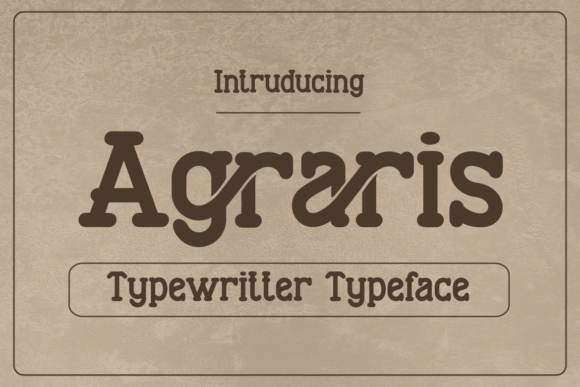
Agraris Font: Vintage Typewriter Style for Modern Web Design
Agraris is a nostalgic typewriter-inspired font that blends vintage charm with modern usability, making it an exceptional choice for web designers seeking to establish a distinct brand voice. As digital interfaces become increasingly homogenized with clean sans serifs, integrating unique serif fonts like Agraris allows creators to inject personality and tactile warmth into landing pages, online stores, and content-heavy websites. Its bold, slab-serif letterforms and rustic details evoke the timeless appeal of classic typewriters, yet the typeface has been refined for screen rendering, ensuring that your editorial design maintains high readability across devices. For UI designers and digital product creators, this balance of retro aesthetic and technical performance is crucial when building conversion-focused layouts that need to stand out in a crowded marketplace.
Agraris for High-Impact Hero Sections and Landing Pages
When designing hero sections for SaaS platforms or creative portfolios, Agraris serves as a powerful display font that immediately captures user attention without sacrificing legibility. The bold weight of this serif typeface creates a strong visual anchor, guiding the user’s eye toward primary value propositions and call-to-action buttons. Unlike delicate script fonts that often fail on mobile screens, the sturdy construction of Agraris ensures that headlines remain crisp and authoritative even at smaller responsive breakpoints. Web designers can leverage this font to create a sense of established trust and craftsmanship, which is particularly effective for brands selling artisanal products, coaching services, or premium digital courses. By using Agraris for main headings, you signal to visitors that the content is curated and intentional, reducing bounce rates through immediate visual engagement.
Optimizing Readability for Digital Content and Blog Headers
Content marketers and bloggers utilizing Agraris will find that its slab-serif structure supports excellent scanning behavior in article headers and pull quotes. While traditional typewriter fonts can sometimes appear muddy on low-resolution displays, Agraris has been optimized for modern web typography, maintaining clear distinction between characters to prevent eye strain during extended reading sessions. This makes it ideal for section dividers, sidebar widgets, and newsletter headers where a touch of nostalgia enhances the reading experience without compromising utility. When implementing this font in content management systems, designers should test various sizes to ensure the rustic details do not become distracting noise; typically, a slightly larger font size than standard body copy works best to showcase the letterforms while preserving hierarchy. The result is a digital publication that feels as tangible as a printed zine but performs with the speed and accessibility required for SEO-driven content strategies.
Agraris Font Pairing Strategies for User Interface Design
Successful web design relies heavily on effective font pairing, and Agraris pairs exceptionally well with neutral sans serif fonts to create a balanced, professional interface. Because Agraris carries significant visual weight and character, it functions best as the dominant voice in headlines, logos, and accent elements, while a clean geometric or humanist sans serif handles body copy, navigation menus, and form fields. This contrast establishes a clear information architecture, allowing users to distinguish instantly between decorative branding elements and functional interactive components. For e-commerce sites, combining Agraris with a highly readable system font ensures that product descriptions and checkout processes remain frictionless, while the serif headings reinforce brand identity throughout the shopping journey. Designers should avoid pairing Agraris with other ornate display fonts or handwritten scripts, as this can create visual clutter and reduce the overall usability of the digital product.
Enhancing Brand Identity for Boutique Online Stores
E-commerce entrepreneurs and Shopify designers can utilize Agraris to differentiate boutique stores from generic marketplace templates by infusing product pages with narrative depth. The vintage charm of this serif font communicates heritage, quality, and authenticity, which are high-value attributes for brands selling handmade goods, sustainable fashion, or specialty foods. When used in banner graphics, category titles, and promotional overlays, Agraris transforms standard sales messaging into storytelling opportunities that resonate emotionally with shoppers. It is important to consider color contrast carefully when applying this typeface; dark text on light backgrounds maximizes the visibility of the rustic details, while reversed white text on dark backgrounds requires careful tracking adjustments to maintain clarity. By treating typography as a core component of the brand kit rather than an afterthought, online store owners can create a cohesive visual language that increases perceived value and supports higher price points.
Technical Considerations for Responsive Web Typography
Implementing Agraris in responsive web environments requires attention to technical details to ensure consistent performance across all viewports and browsers. Web designers must verify that the webfont files are properly subsetted to reduce load times, as heavy typography assets can negatively impact Core Web Vitals and search rankings. When styling this font via CSS, utilizing relative units like rem or em instead of fixed pixels allows the bold slab-serifs to scale proportionally within fluid layouts. Additionally, designers should check for included OpenType features or alternate characters that might offer more refined spacing options for specific digital contexts, such as tight button labels or wide-format hero images. Testing on actual mobile devices is essential, as the tactile texture that looks beautiful on a desktop monitor may require slight simplification or increased line-height on smaller screens to prevent the letters from feeling cramped. Proper licensing is also a critical technical consideration; ensuring you have the correct commercial webfont license protects client projects and digital products from legal issues while supporting the type designer’s work.
Agraris for Social Media Graphics and Digital Ad Creatives
Digital marketers creating social media assets and paid ad creatives can rely on Agraris to stop the scroll in crowded feeds where standard sans serifs often blend into the background. The distinctive silhouette of these serif letterforms creates instant brand recognition in square Instagram posts, Pinterest pins, and YouTube thumbnails, acting as a visual signature that ties disparate content pieces together. Because social platforms compress images, the bold nature of Agraris holds up better than thin or intricate fonts, ensuring the message remains legible even when viewed on small mobile screens. When designing templates for clients, incorporating Agraris into predefined text styles allows non-designers to maintain brand consistency without needing advanced typography skills. This versatility extends to email marketing headers and digital course certificates, where the font adds a layer of prestige and completion that enhances the user's perception of the digital product. Ultimately, Agraris bridges the gap between nostalgic aesthetics and modern conversion goals, proving that vintage-inspired typography has a vital role in contemporary digital strategy.